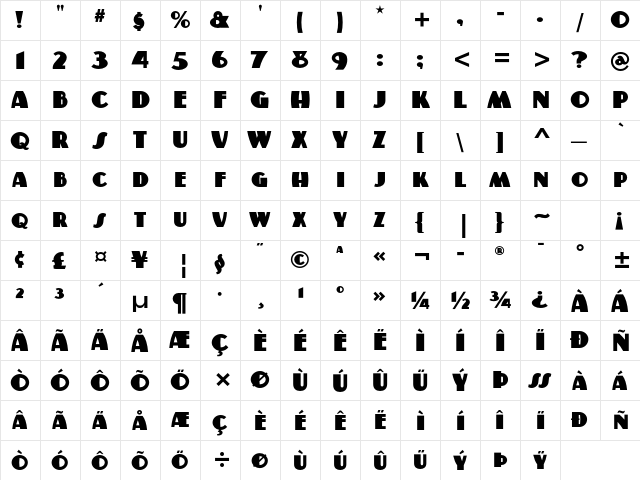
Mister Chuckles ITC Std Regular
| Designer | Nick Curtis |
Design Context for Mister Chuckles ITC Std Typeface
Mister Chuckles ITC Std is a composed and adaptable typeface that performs quietly and consistently across a wide range of design contexts.